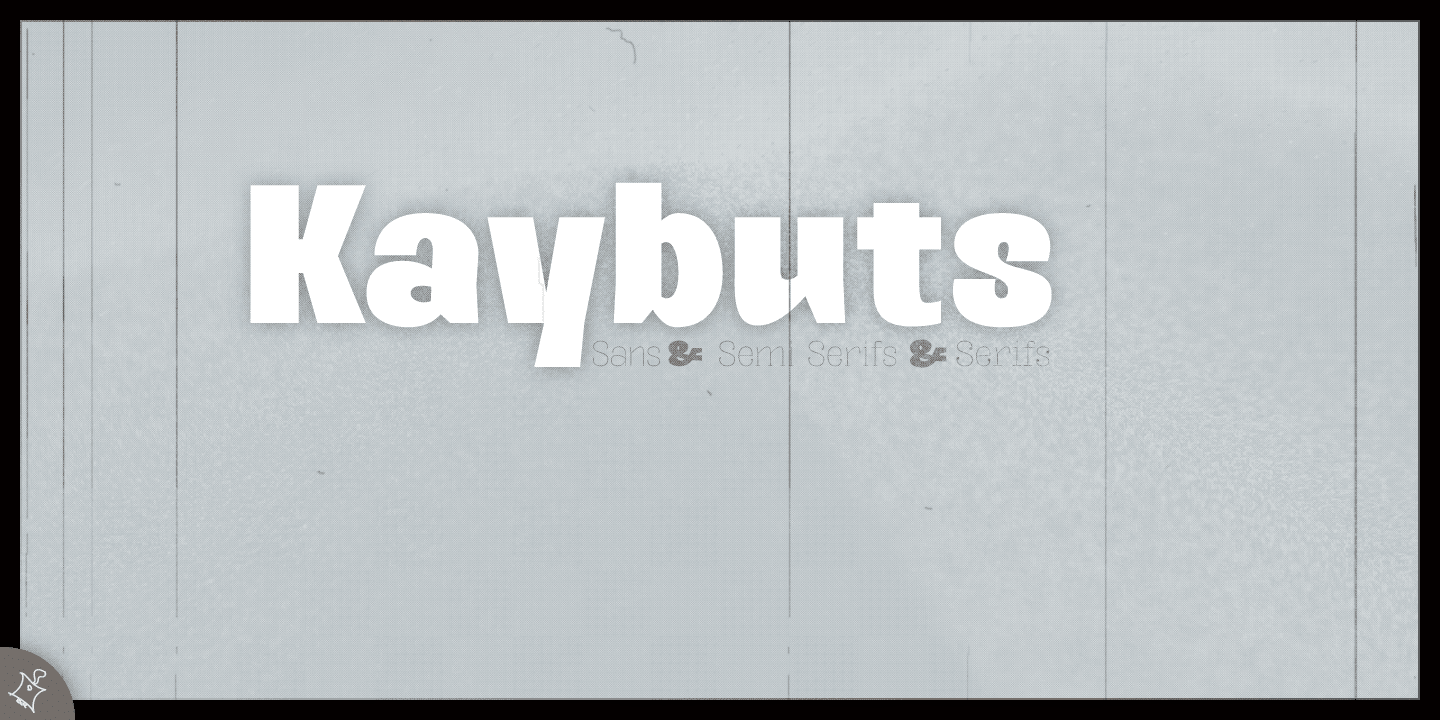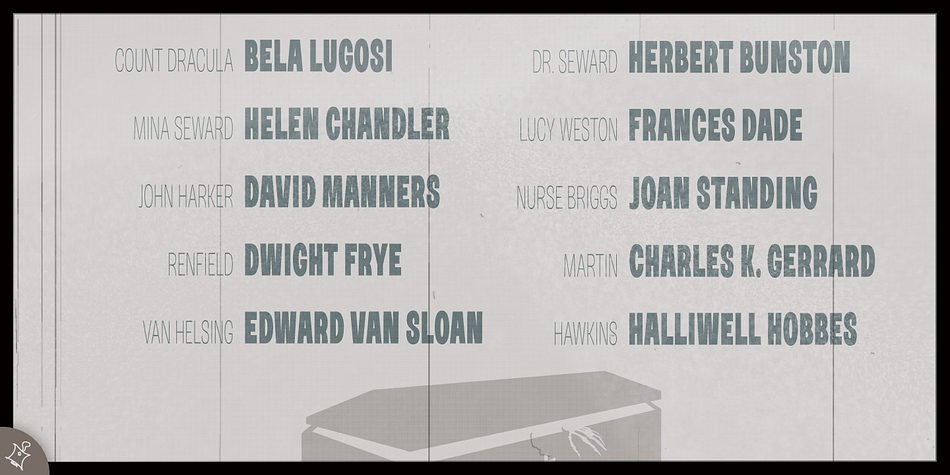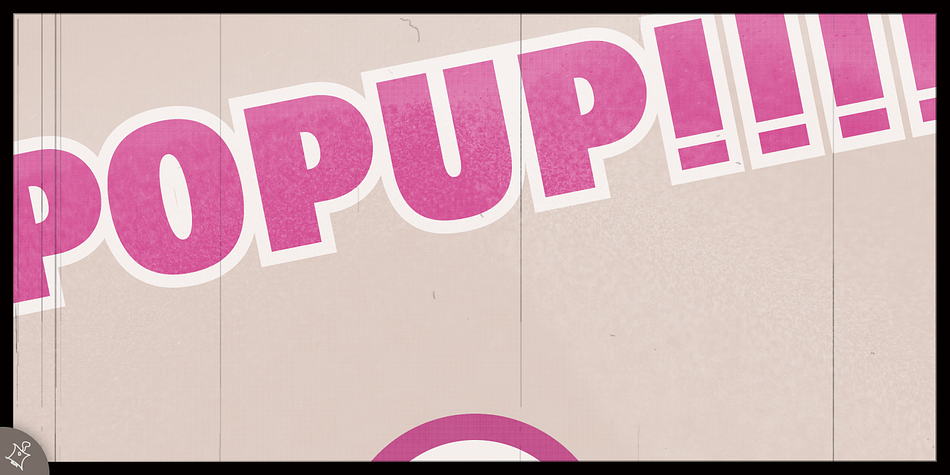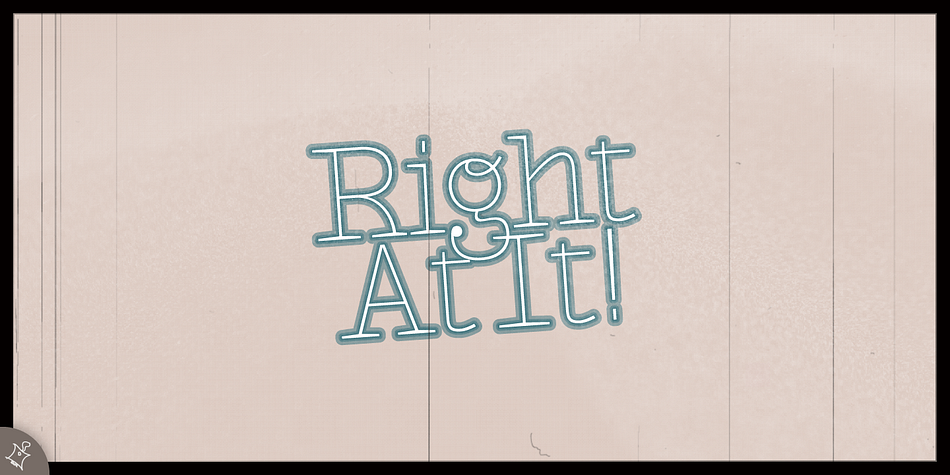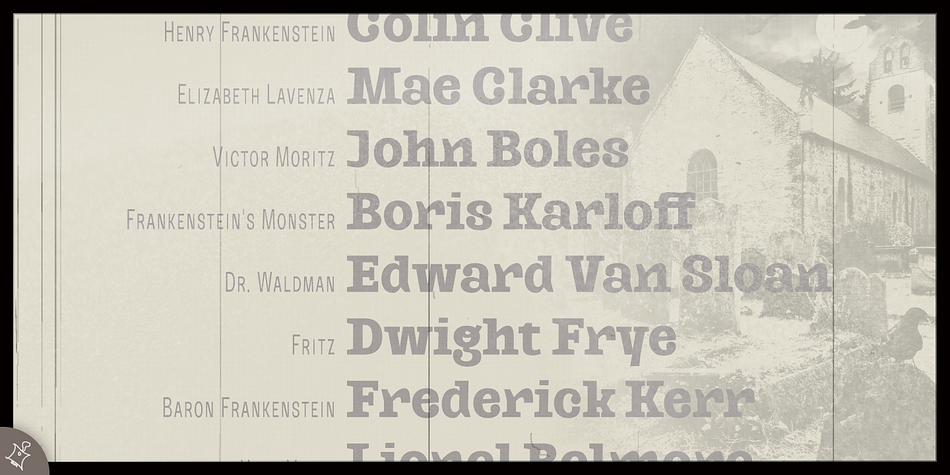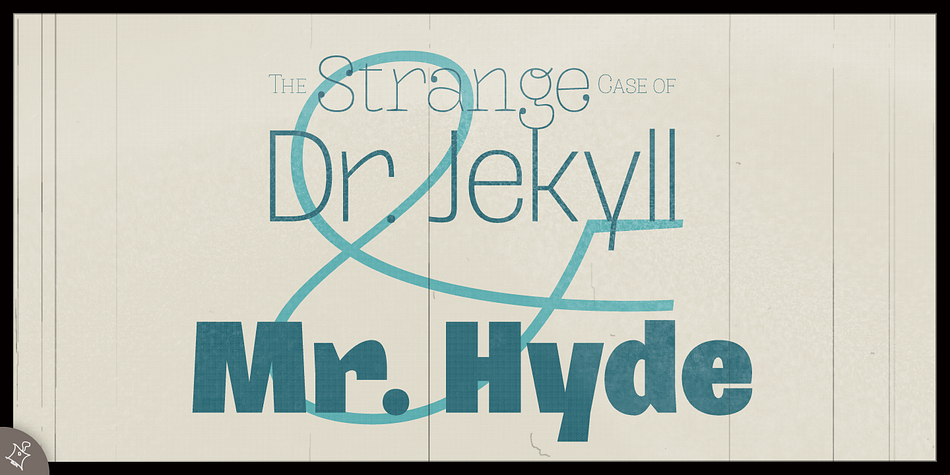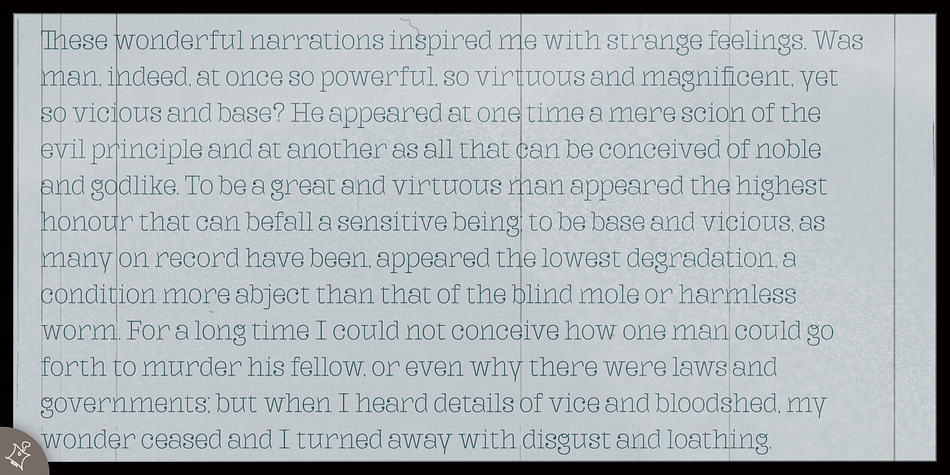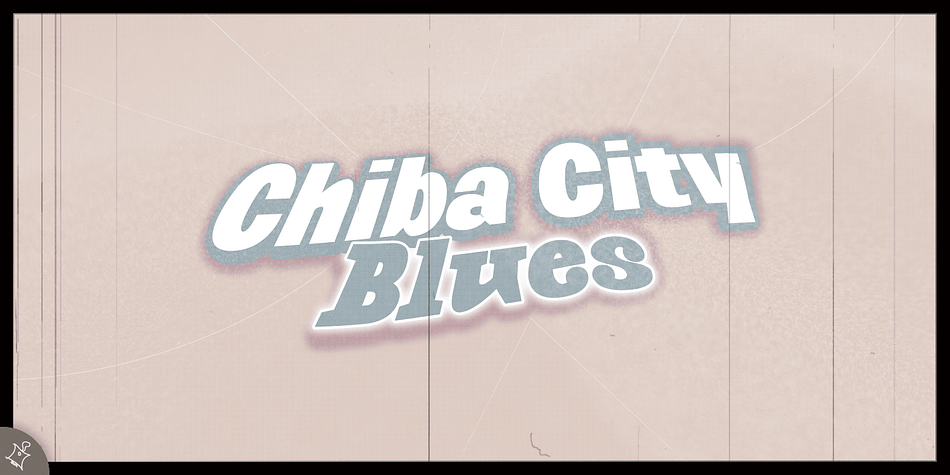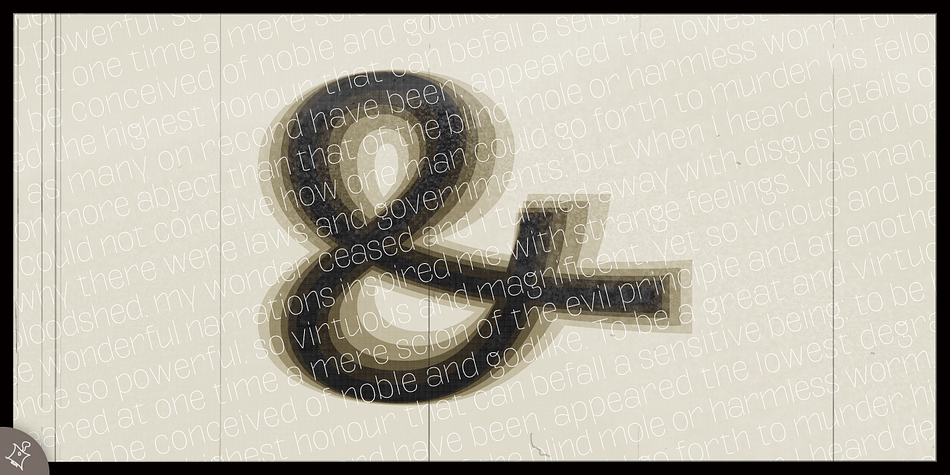
Kaybuts
Designed by Shuji Kikuchi, Kaybuts is a sans serif and serif font family. This typeface has thirty-six styles and was published by sugargliderz.
The typeface was designed under the influence of, or with Mary Shelley’s novel “Frankenstein: or The Modern Prometheus” in mind.
It contains both sans-serif typefaces with a modern look and serif typefaces with a pre-modern look. It is designed to be effective when used relatively large.